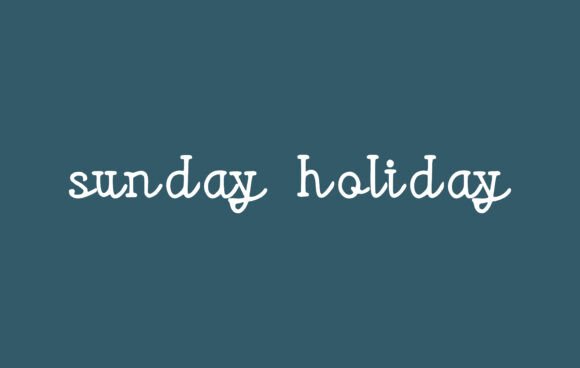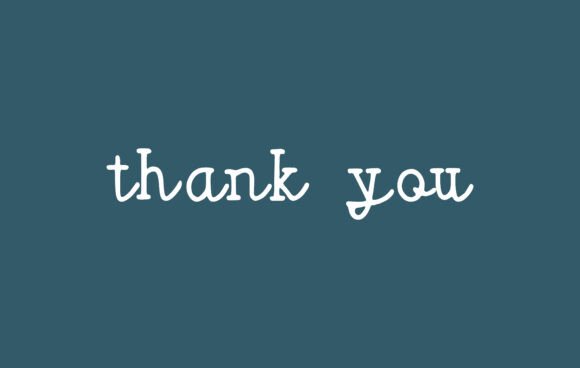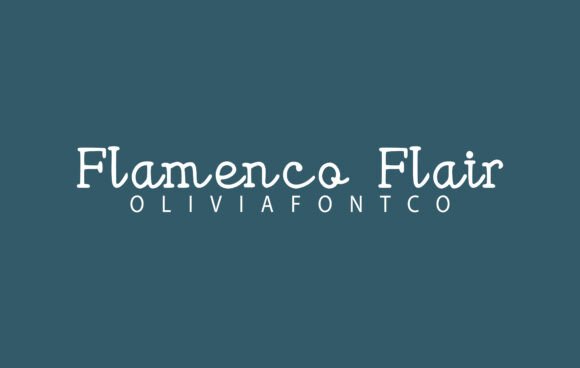
Unleash the Passion: Discover the Beauty of Flamenco Flair Font
Are you a designer or crafter looking for a font that can add a touch of romance and elegance to your creative projects? Look no further than the Flamenco Flair font, an authentic handwritten font that is sure to capture the hearts of your audience. In this article, we’ll dive into the features and benefits of this stunning font, and explore how it can elevate your designs to new heights.
The Essence of Flamenco Flair Font
Flamenco Flair font is an expertly designed handwritten font that exudes a romantic touch. Its authentic and elegant feel makes it perfect for a wide range of creative projects, from magazine headlines and social media graphics to branding, wedding invitations, and more. The font’s legibility and versatility make it an excellent choice for both title and body text, allowing you to use it in various contexts with ease.
What Makes Flamenco Flair Font Stand Out?
- Authentic Handwritten Style: Flamenco Flair font boasts an authentic handwritten style that adds a personal touch to your designs. Its unique and organic feel sets it apart from more traditional fonts.
- Romantic and Elegant: The font’s romantic and elegant feel makes it perfect for designs that require a touch of sophistication. Whether you’re creating wedding invitations or luxury branding, Flamenco Flair font is sure to impress.
- Highly Legible: Despite its elegant feel, Flamenco Flair font is highly legible, making it suitable for both title and body text. This versatility allows you to use the font in a wide range of applications.
- Perfect for Creative Projects: From magazine headlines and social media graphics to branding, wedding invitations, and more, Flamenco Flair font is the perfect choice for designers and crafters looking to add a touch of elegance to their creative projects.
How to Use Flamenco Flair Font in Your Designs
Flamenco Flair font is incredibly versatile and can be used in a variety of design contexts. Here are a few ideas to get you started:
- Magazine Headlines: Use Flamenco Flair font to create eye-catching headlines that grab your readers’ attention.
- Social Media Graphics: Add a touch of elegance to your social media graphics with Flamenco Flair font. Perfect for creating engaging and shareable content.
- Branding: Use Flamenco Flair font to create a luxurious and sophisticated brand identity that sets you apart from the competition.
- Wedding Invitations: Add a touch of romance and elegance to your wedding invitations with Flamenco Flair font. Perfect for creating beautiful and memorable invitations.
Tips for Getting the Most Out of Flamenco Flair Font
To get the most out of Flamenco Flair font, here are a few tips to keep in mind:
- Experiment with Font Sizes: Flamenco Flair font looks great in a variety of font sizes. Experiment with different sizes to find the perfect fit for your design.
- Pair with Other Fonts: Flamenco Flair font pairs well with a variety of other fonts. Experiment with different font combinations to create a unique and visually appealing design.
- Use in Combination with Images: Flamenco Flair font looks great in combination with images. Use the font to add context and meaning to your images.
In conclusion, Flamenco Flair font is a beautiful and elegant handwritten font that is perfect for designers and crafters looking to add a touch of romance and sophistication to their creative projects. With its authentic and elegant feel, high legibility, and versatility, Flamenco Flair font is sure to become a favorite in your font collection. So why wait? Download Flamenco Flair font today and start creating stunning designs that capture the hearts of your audience.